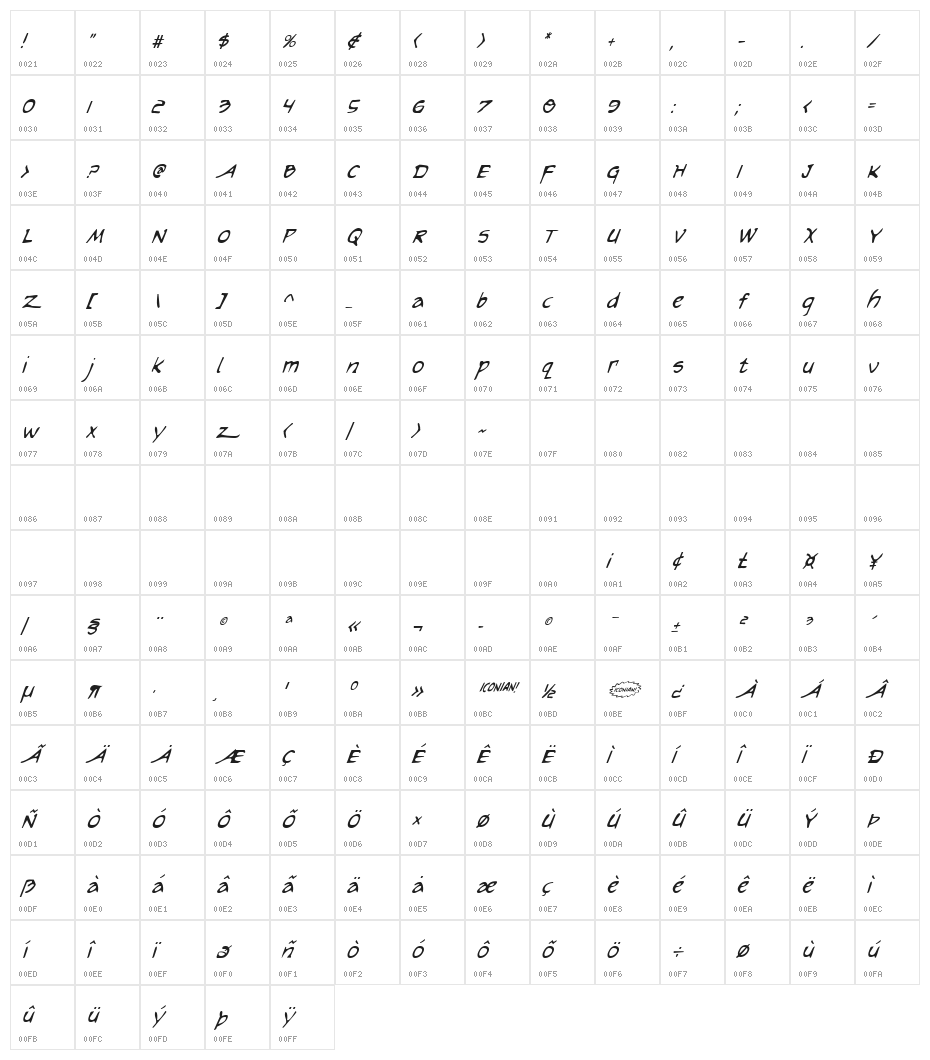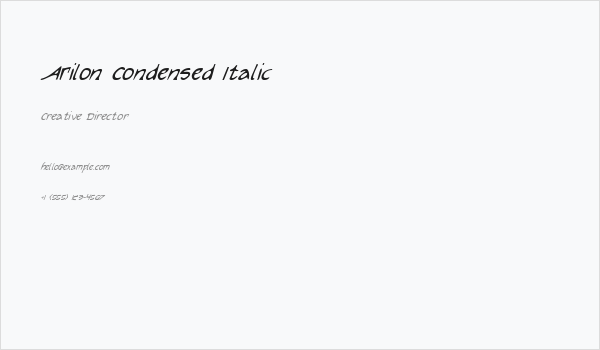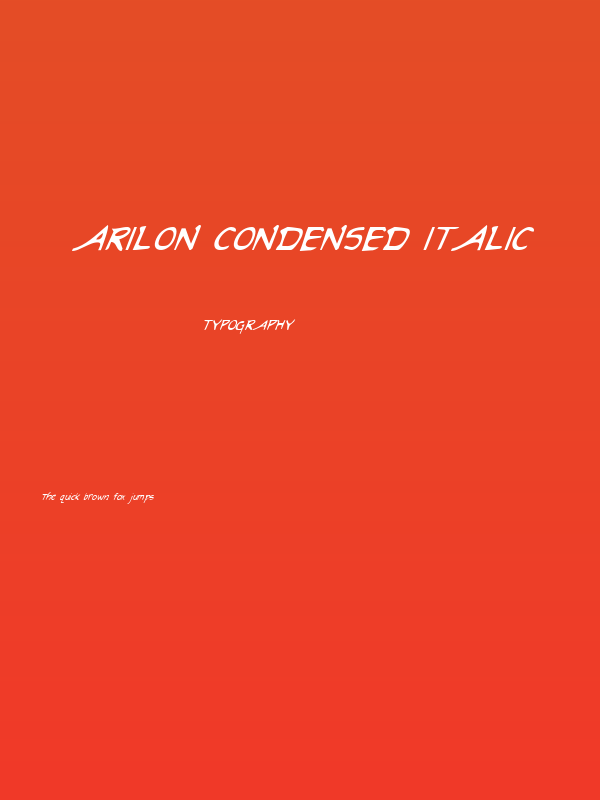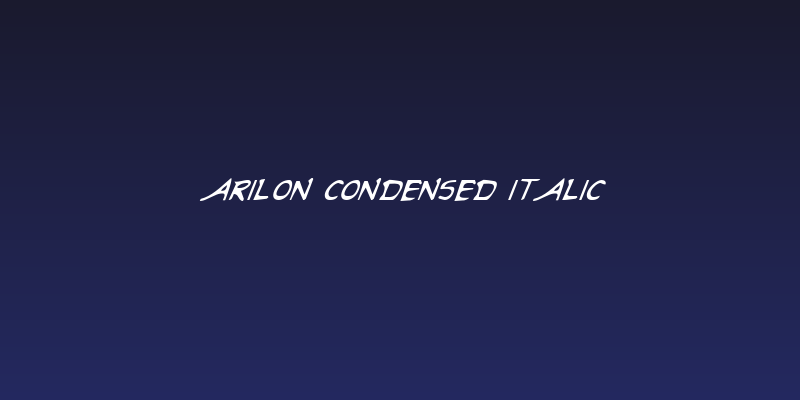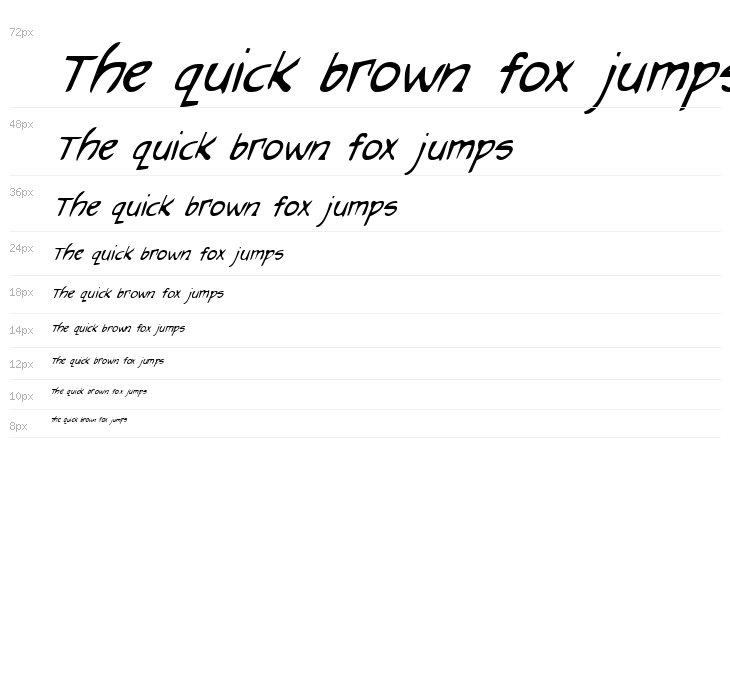
Arilon Condensed Italic Font
Arilon Condensed Italic Description
This font features a dynamic and energetic style, characterized by its italicized and condensed form. The letters exhibit a fluid motion, with sharp angles and a slight slant that adds a sense of speed and movement. The strokes are moderately thick, providing a bold presence without overwhelming the design. The uppercase and lowercase letters maintain a consistent style, while the numerals and special characters integrate seamlessly, offering versatility across various applications. The overall appearance is modern and slightly edgy, making it suitable for projects that require a touch of flair and personality.